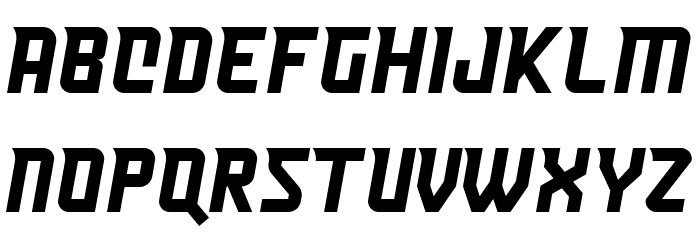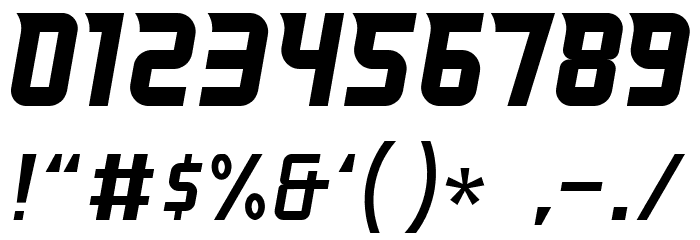
Heist-Italic Font
This font features a bold, italicized style with a modern and dynamic appearance. The characters are slightly slanted, giving a sense of motion and energy. The strokes are thick and consistent, providing a strong visual impact. The uppercase and lowercase letters maintain a uniform width, contributing to a cohesive look. The numerals are clear and bold, matching the overall style of the alphabet. Special characters are designed to complement the letters and numbers, ensuring versatility in various design contexts. The font's design is suitable for projects that require a bold statement, such as branding, advertising, and headlines.
- Font: Heist-Italic
- Proposed Projects: Ideal for branding, advertising, headlines, and any design needing a bold statement.
- Category: Sans-Serif
- Use Case: Headlines, Logos, Branding